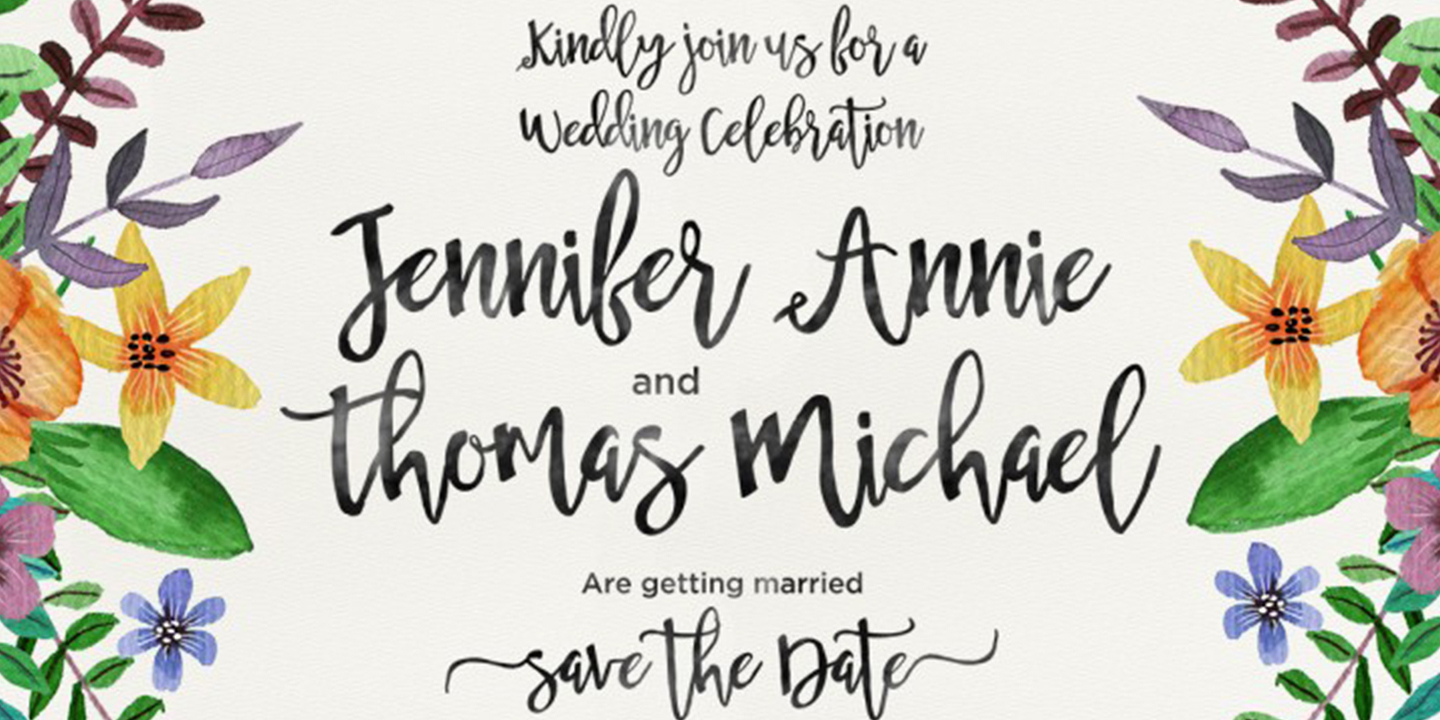
Shingitalis Typeface
Shingitalis Typeface is a modern calligraphy font published by Area Type Studio.
Shingitalis Script is a modern calligraphy font, with characters dance along the baseline and elegant touch.
Opentype features with stylistic alternates, ligatures, and multiple language support.
Can be used for various purposes.such as logos, wedding invitation, heading, t-shirt, letterhead, signage, label, news, posters, badges etc.
Displaying the beauty and characteristics of the Shingitalis Typeface font family.
Highlighting the Shingitalis Typeface font family.
Shingitalis Typeface font family sample image.
Shingitalis Script is a modern calligraphy font, with characters dance along the baseline and elegant touch. Opentype features with stylistic alternates, ligatures, and multiple language support.
Can be used for various purposes.such as logos, wedding invitation, heading, t-shirt, letterhead, signage, label, news, posters, badges etc.
Foundry Area Type Studio
Style Modern Calligraphy